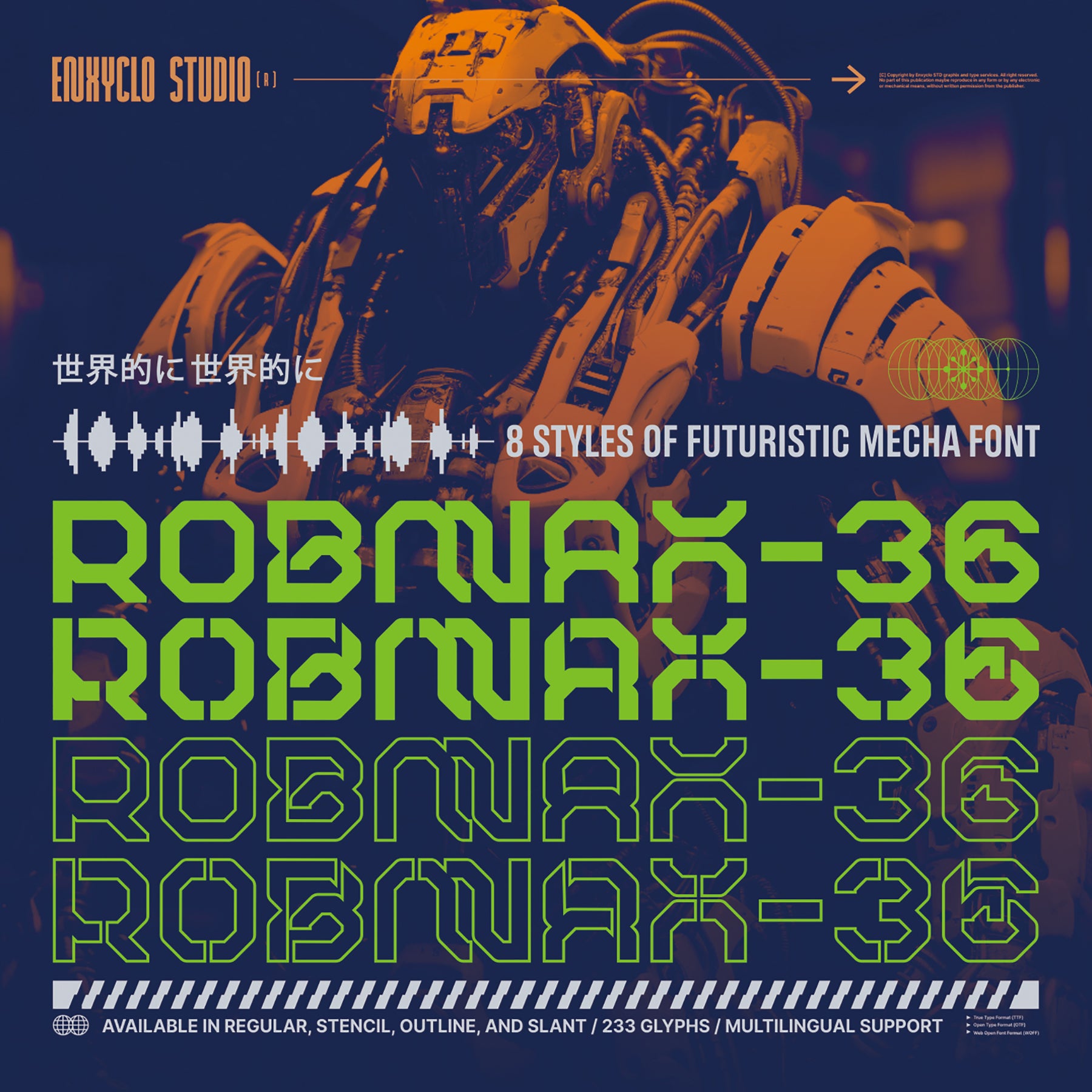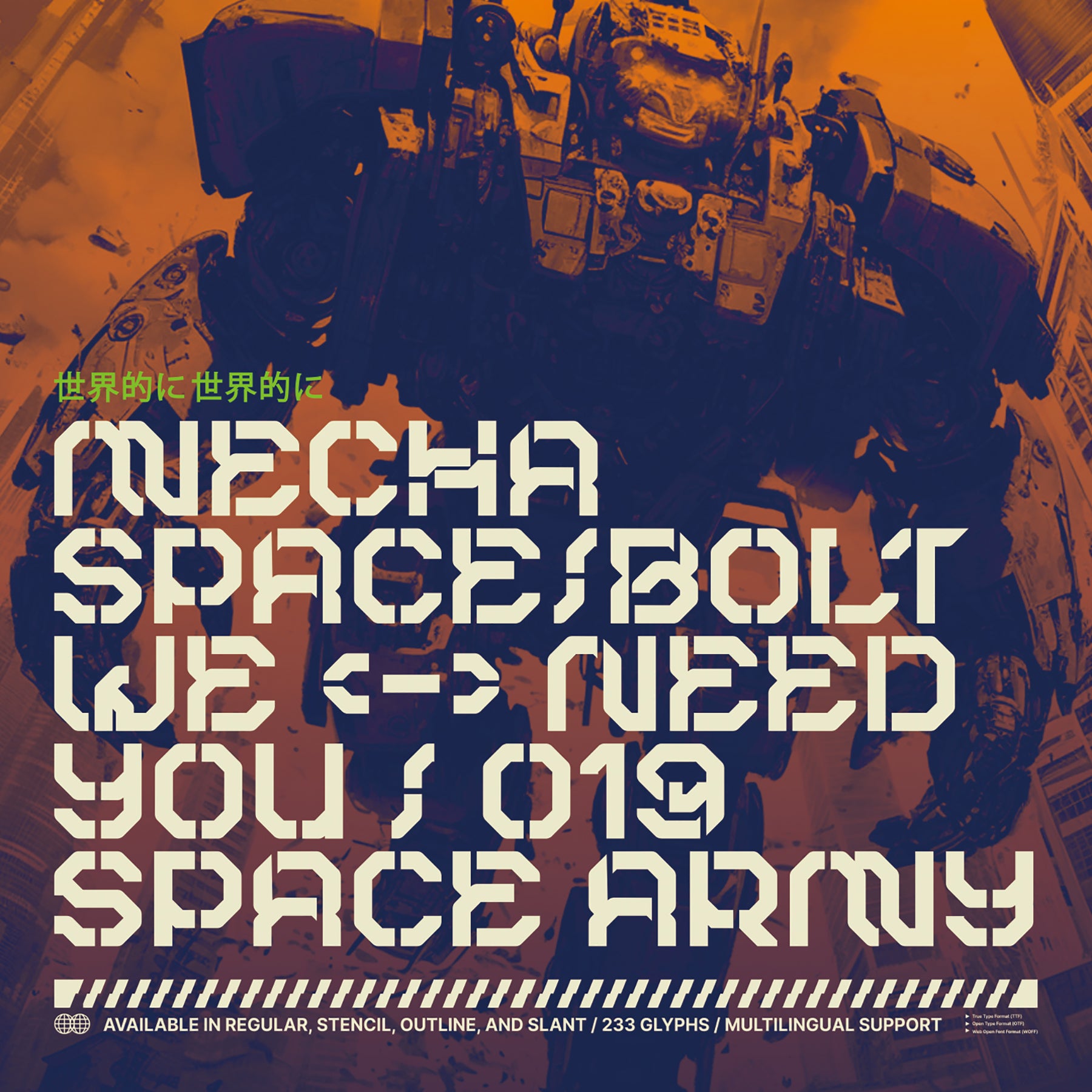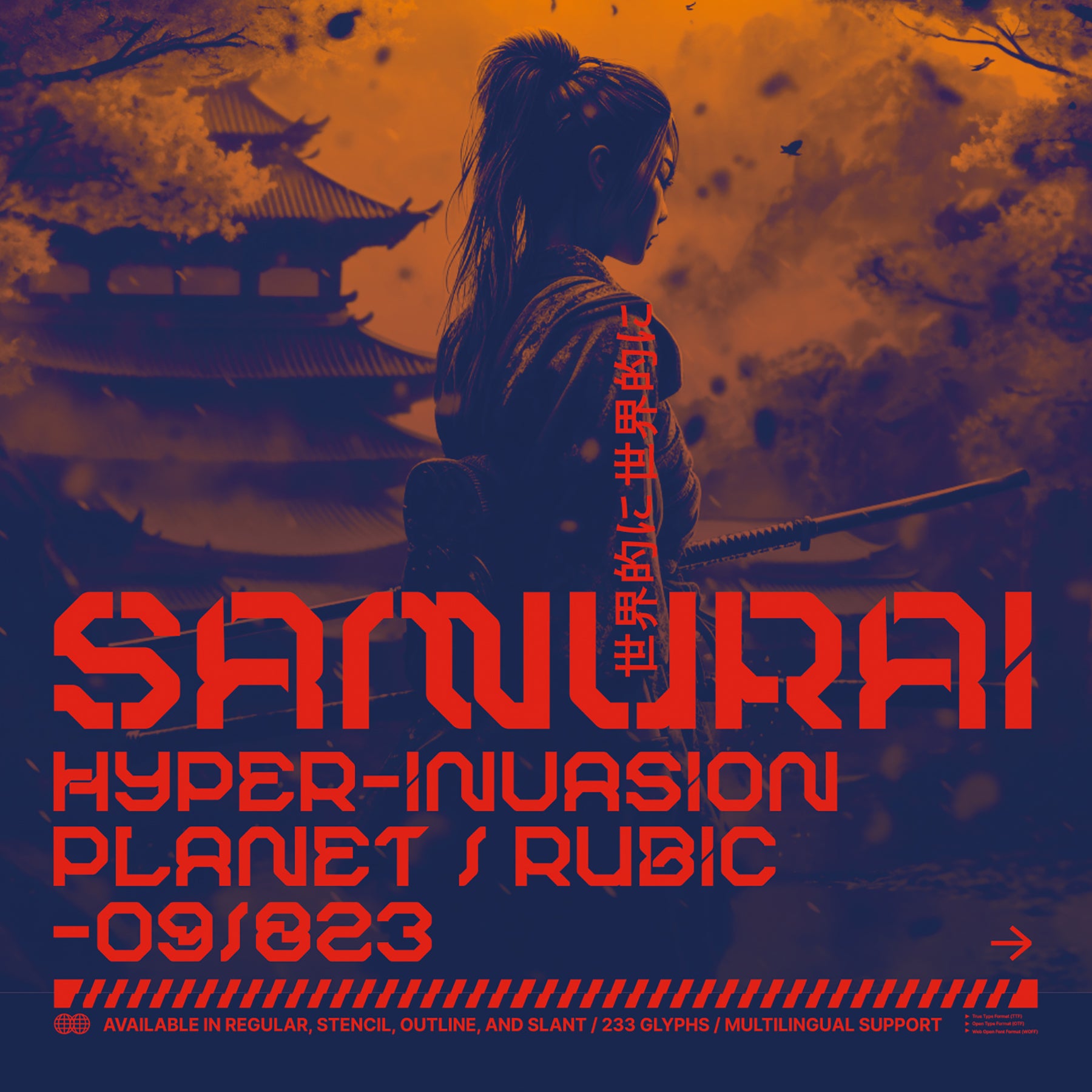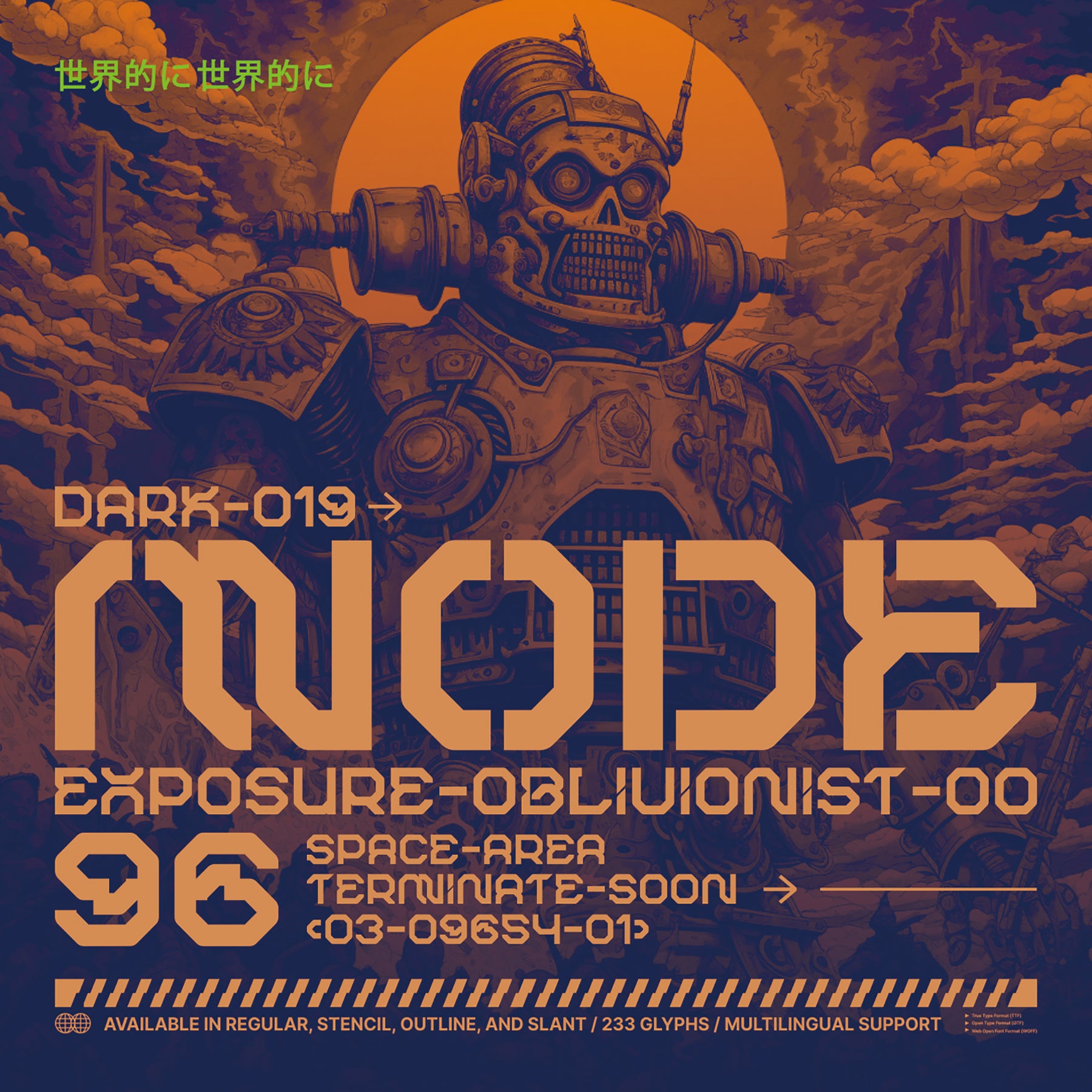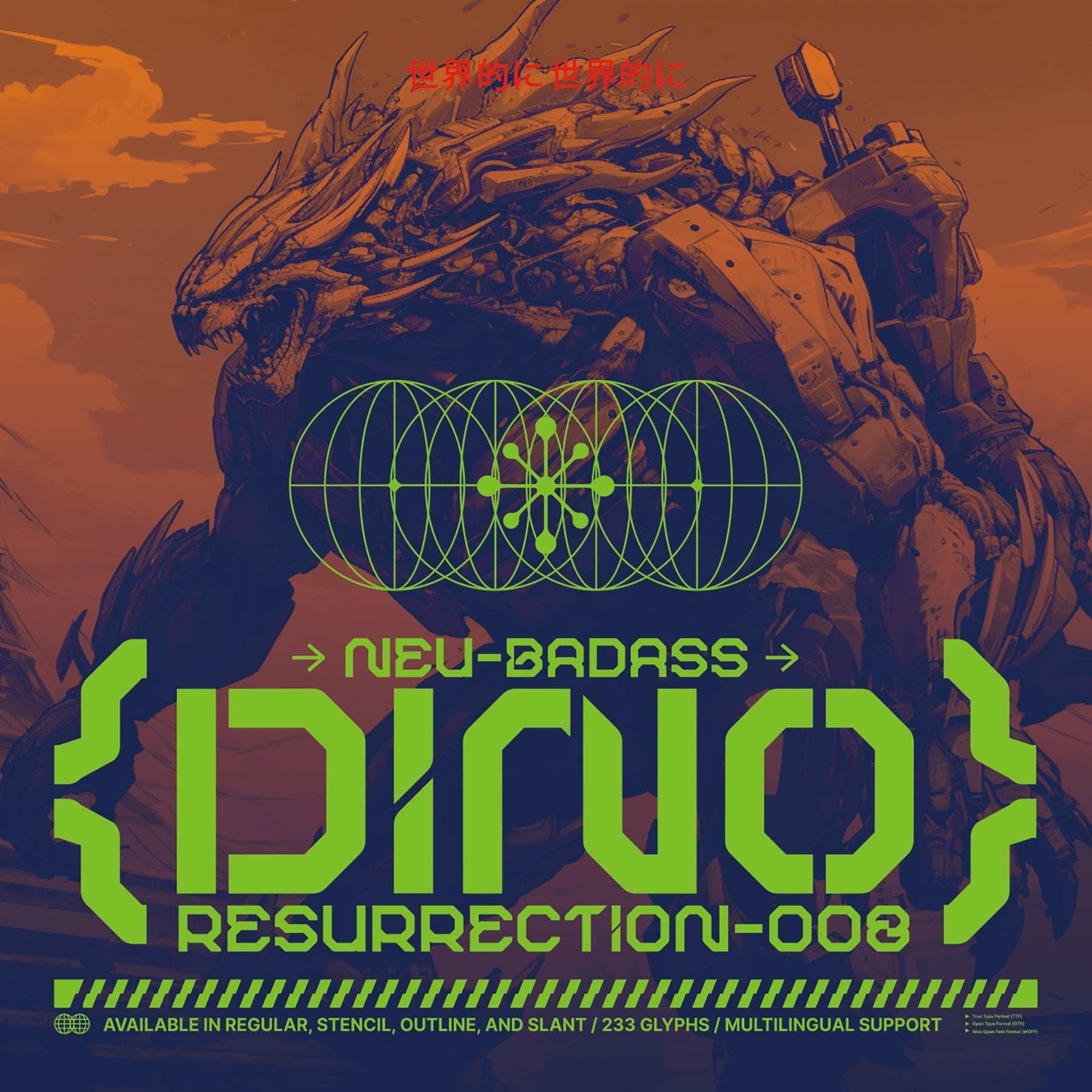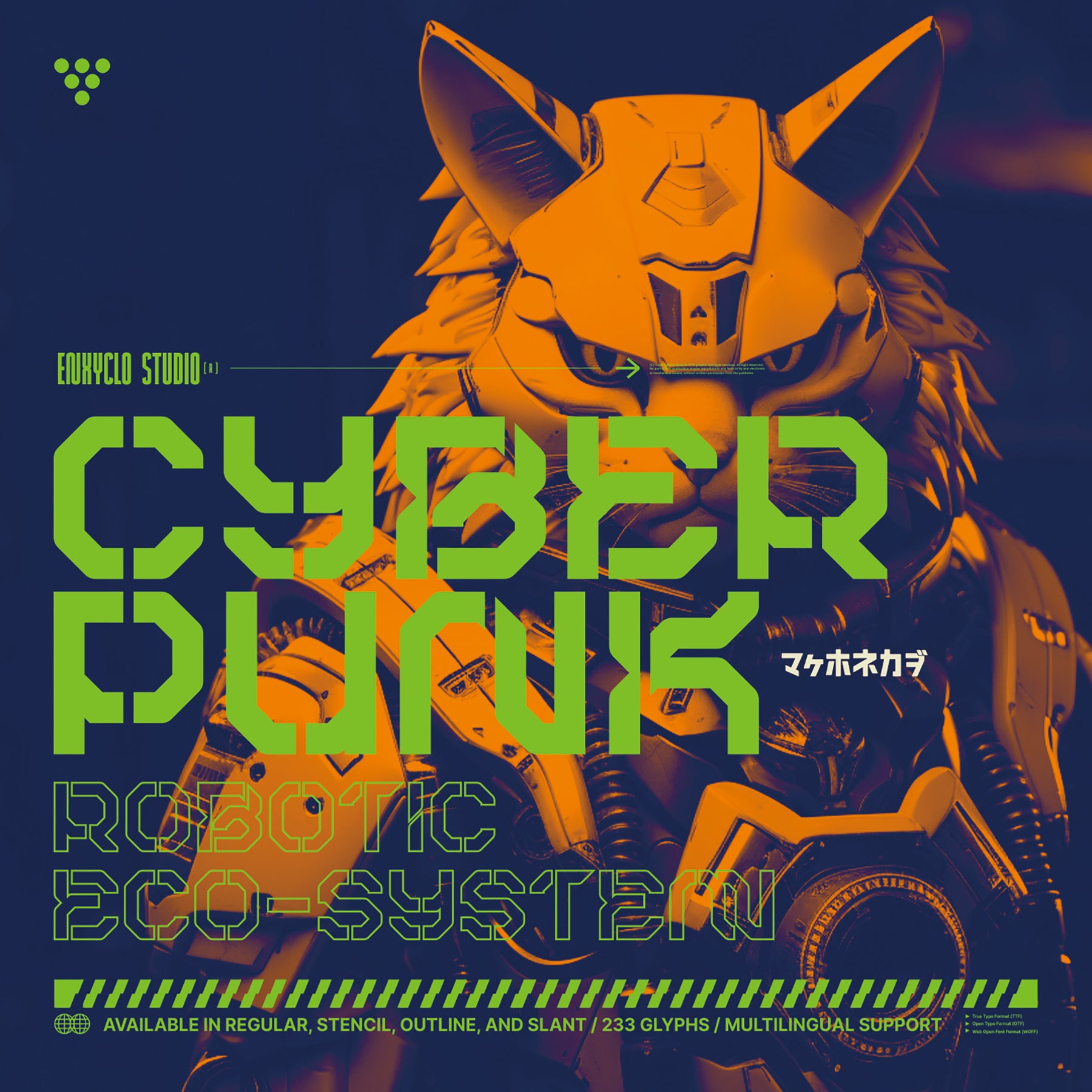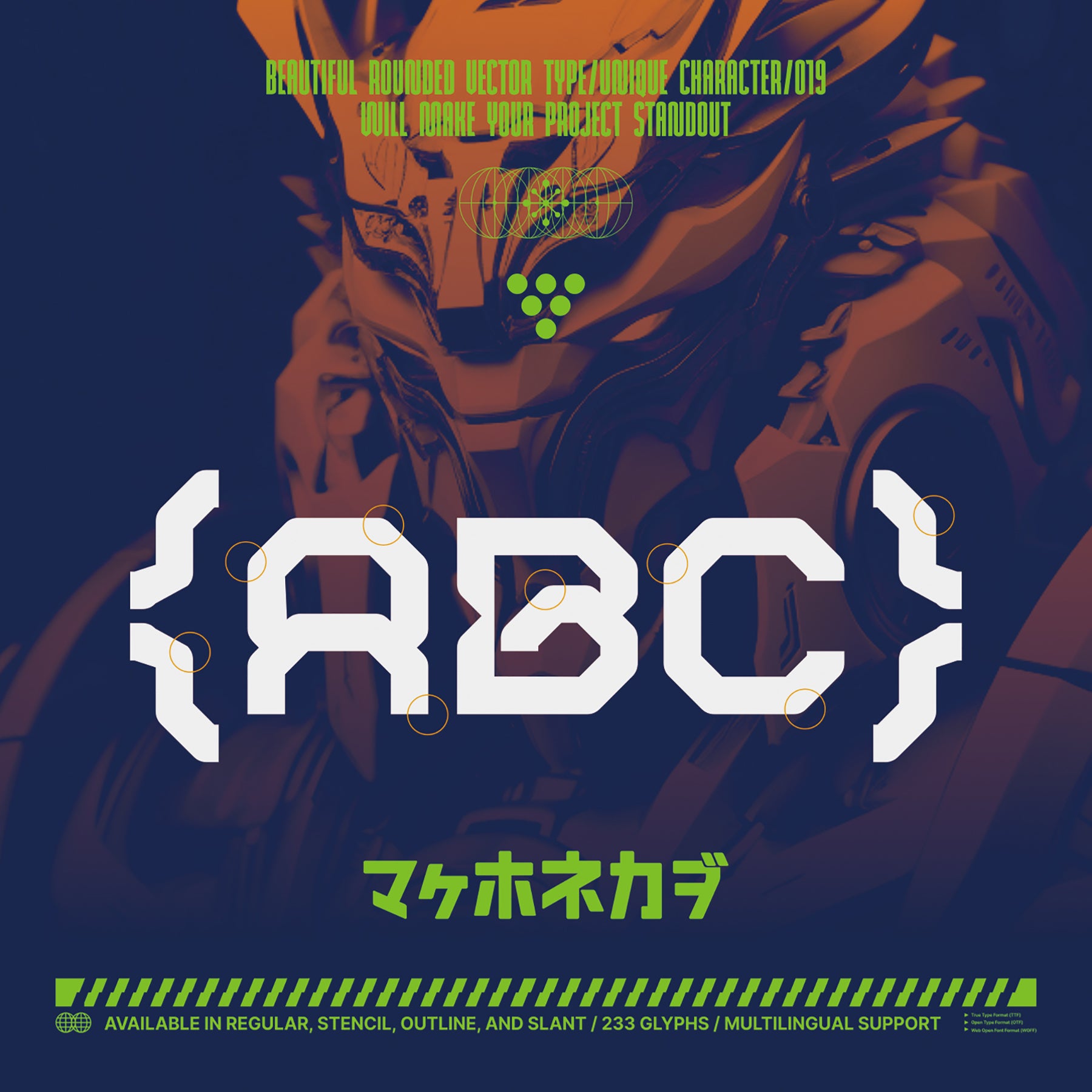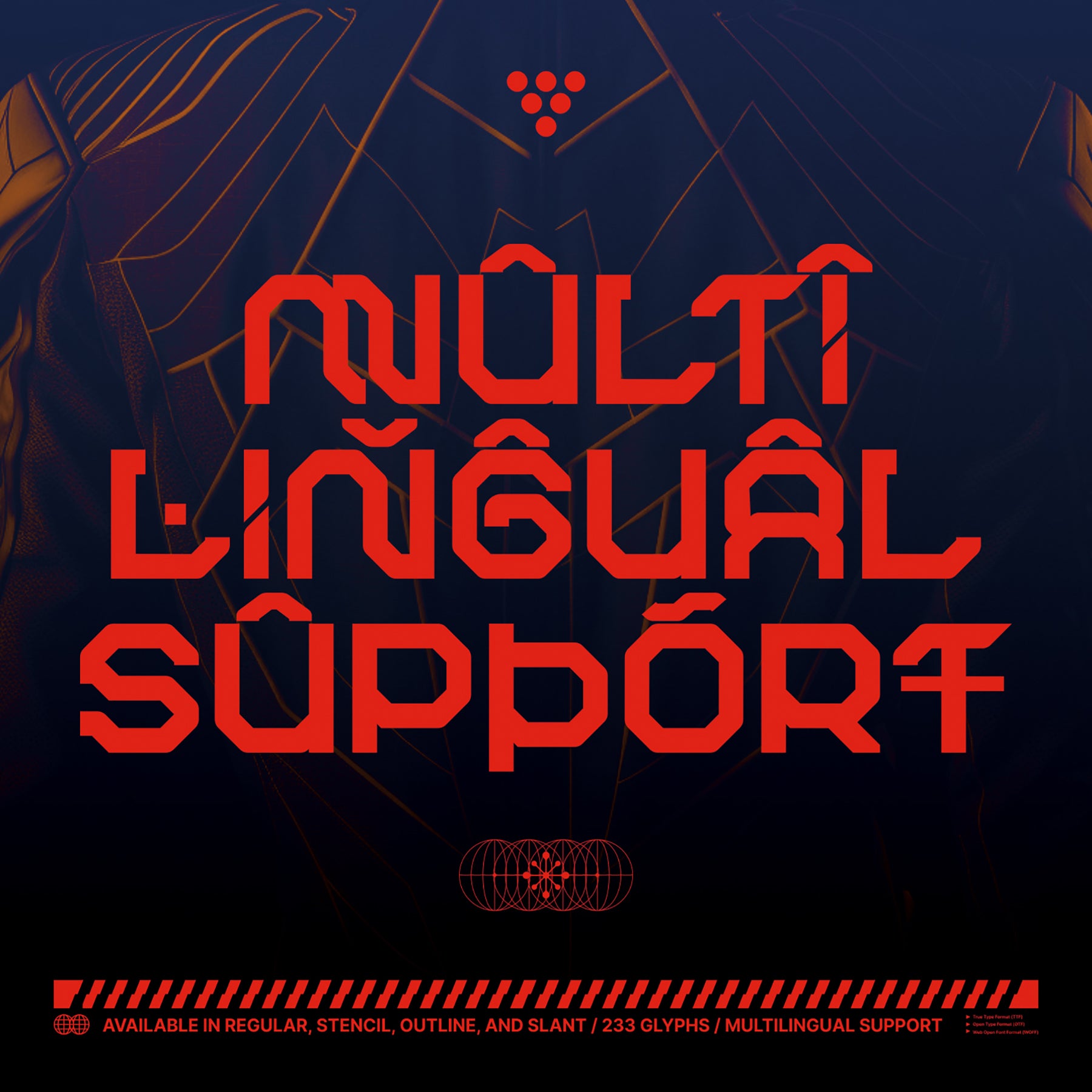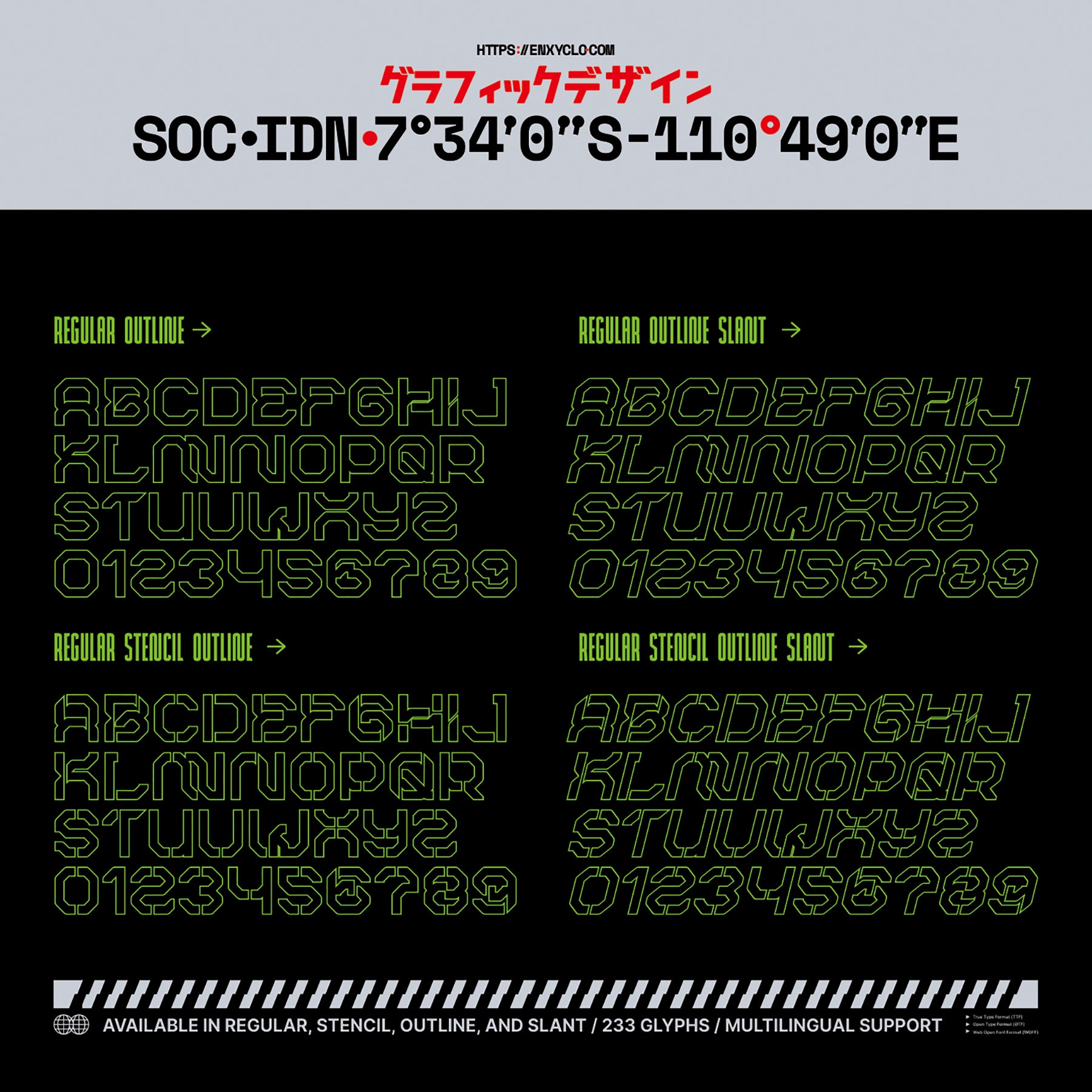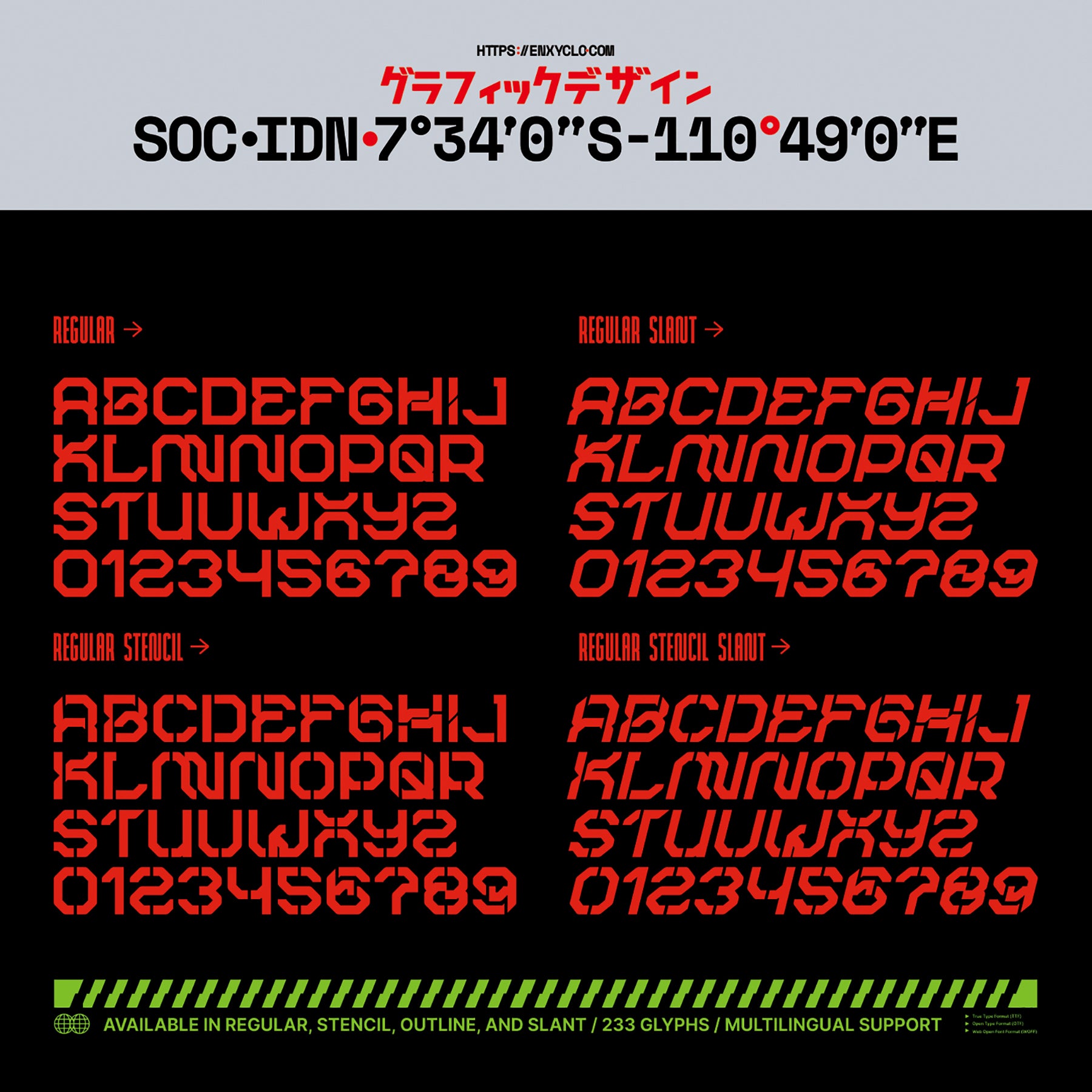
ROBMAX-36 Typeface
Presenting ROBMAX36: a futuristic mecha cyberpunk typeface that encapsulates the essence of innovation. Drawing profound inspiration from industrial and mecha-robotic influences, its typeface design infuses your project with unwavering power and inspiration.
Crafted to perfection, ROBMAX36 emerges as a must-have choice, capable of taking your creative endeavors to unparalleled heights. Tailored to excel in various applications, from headlines and billboards to magazines, websites, posters, and more. Its adaptability extends to branding, thumbnails, t-shirt designs, streetwear concepts, and creative logos – essentially, any project seeking a fusion of futuristic and industrial flair.
With this exquisite typeface, your project is guaranteed to command attention amidst the crowd. Discover the potential to set your creation apart by exploring the previews above, igniting your imagination on ingenious ways to harness its captivating charm.